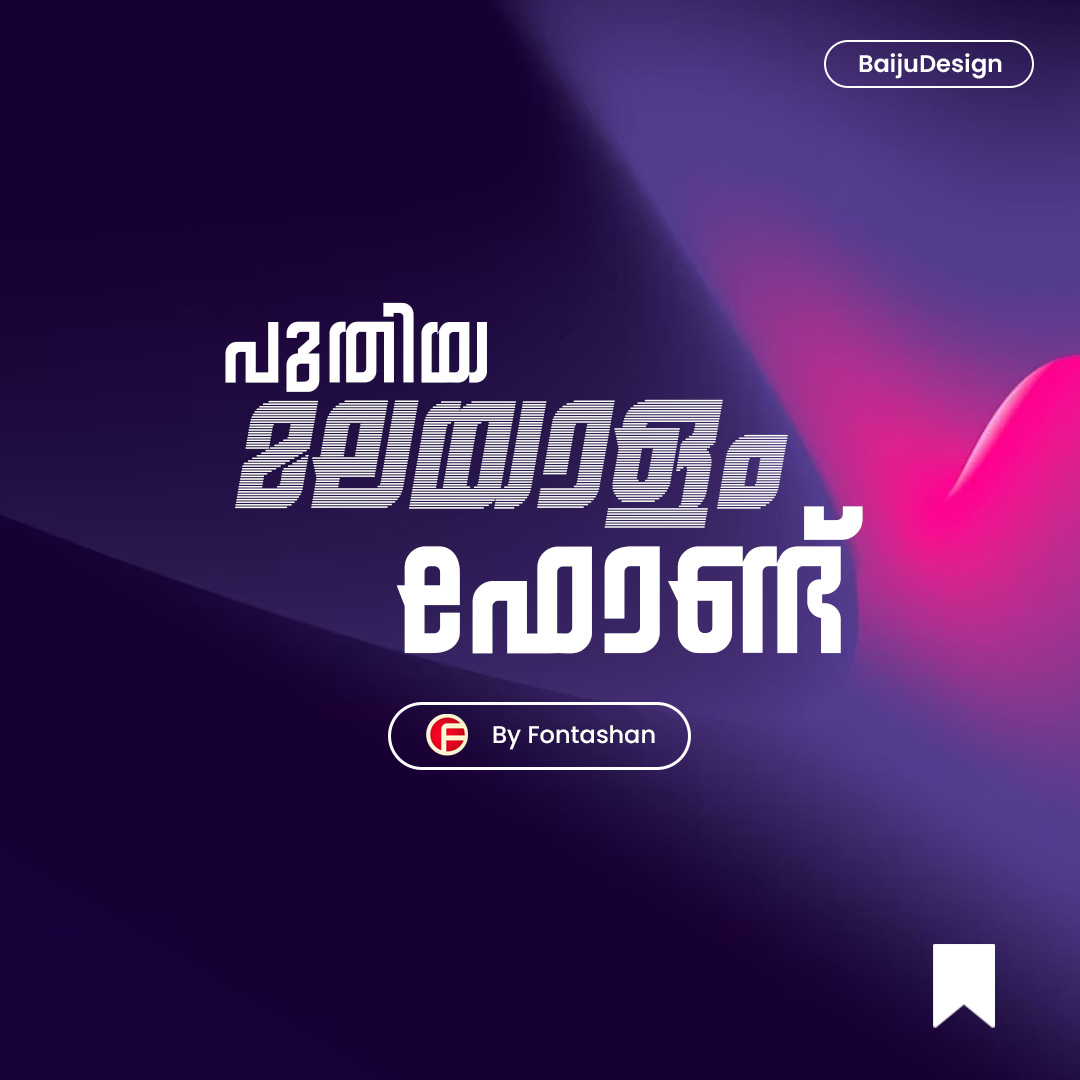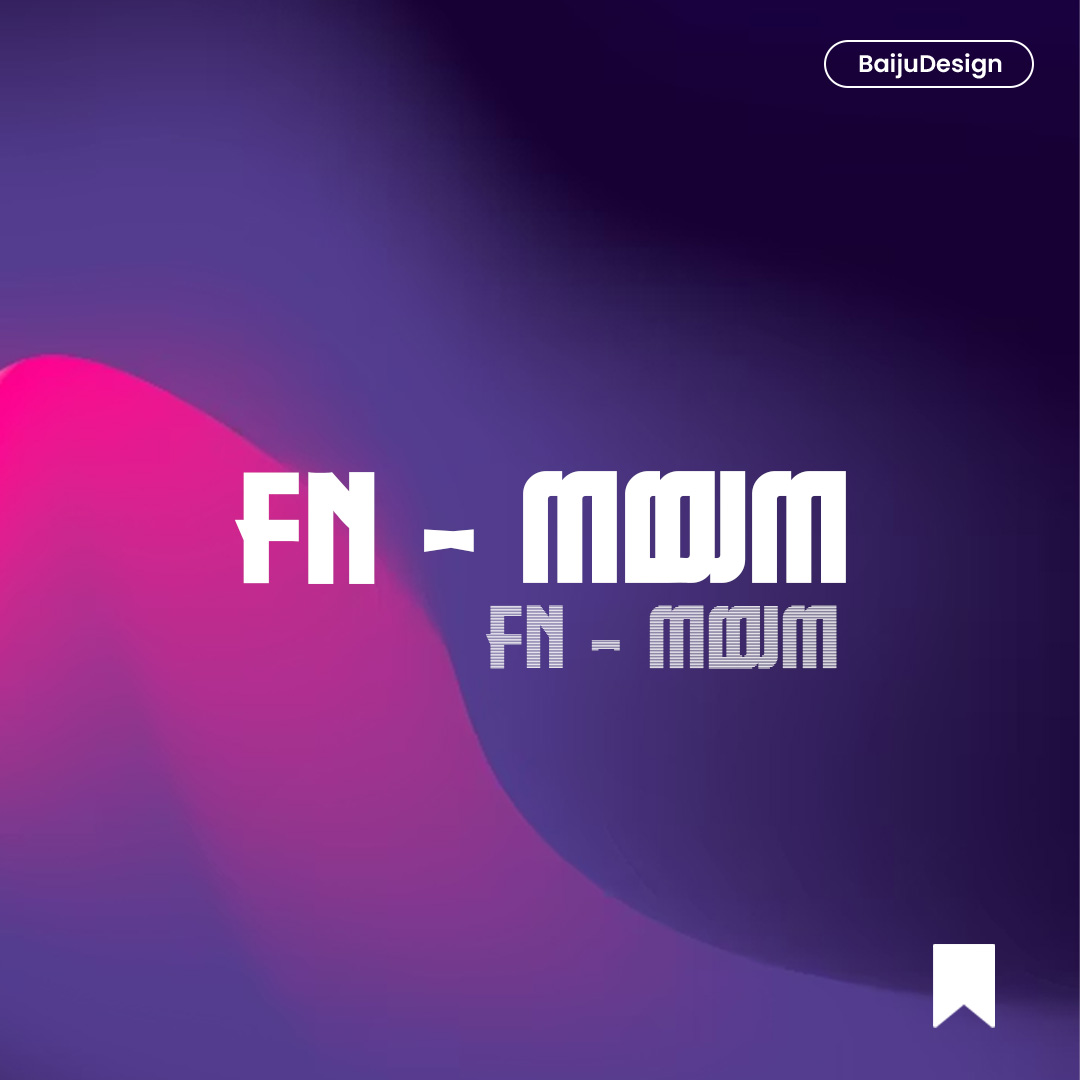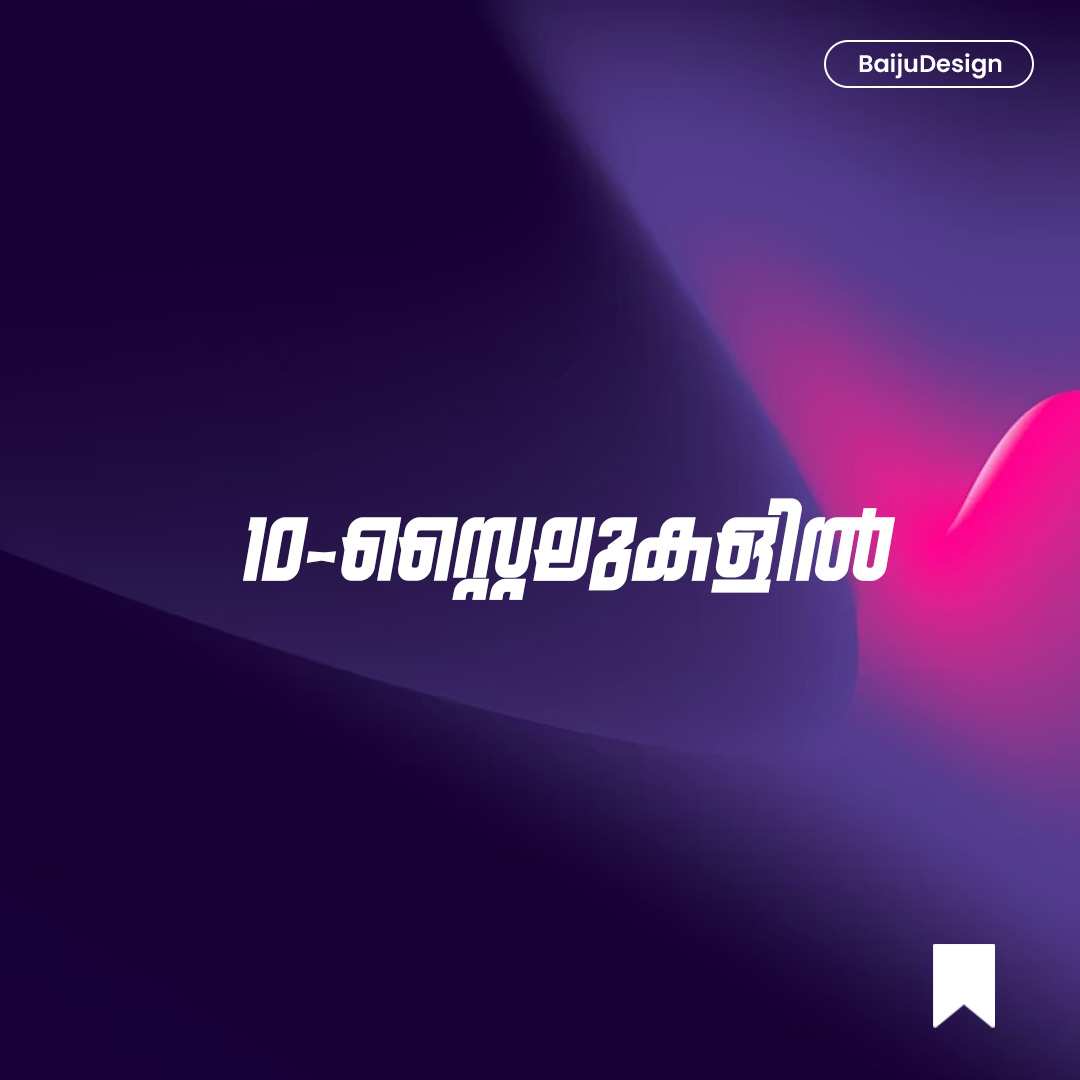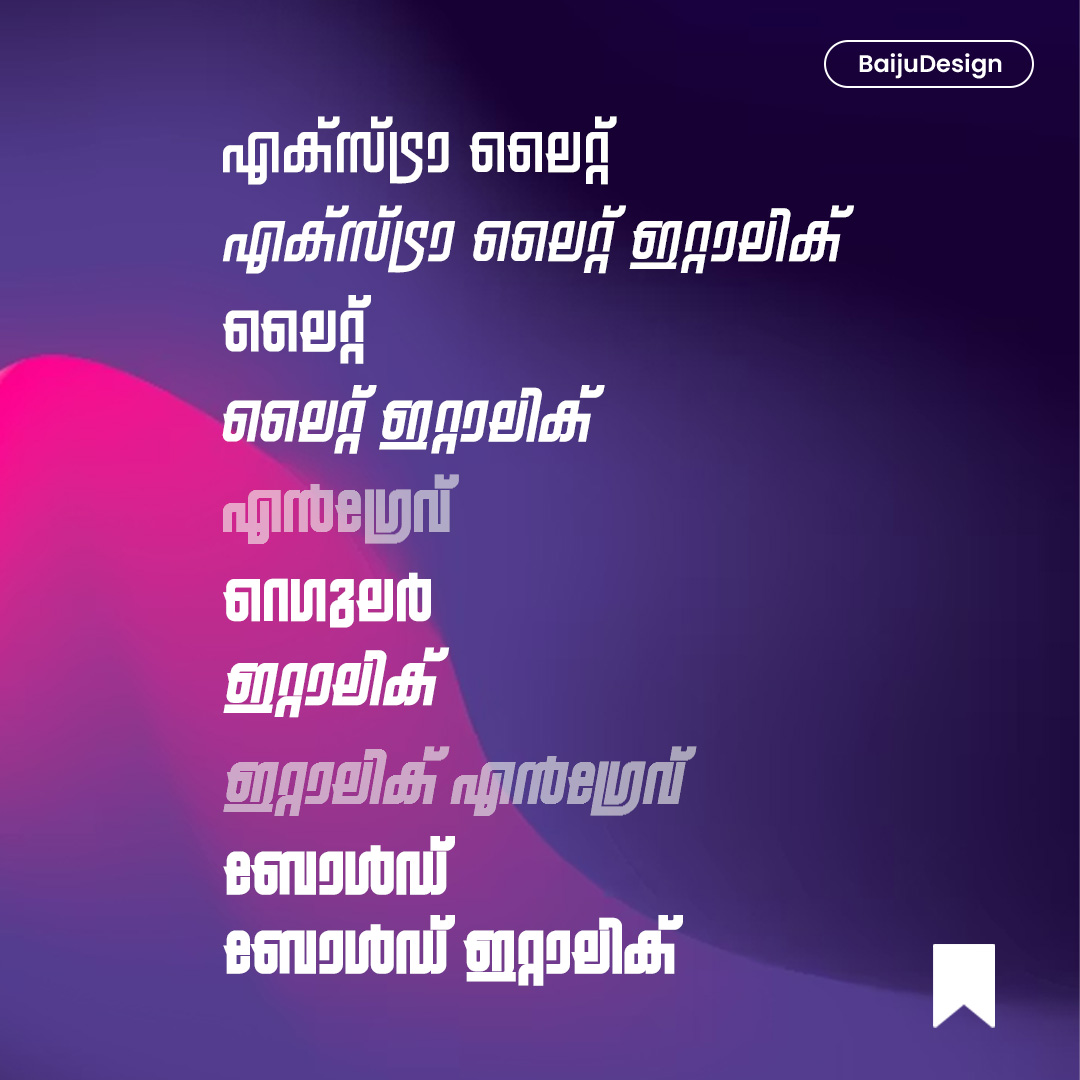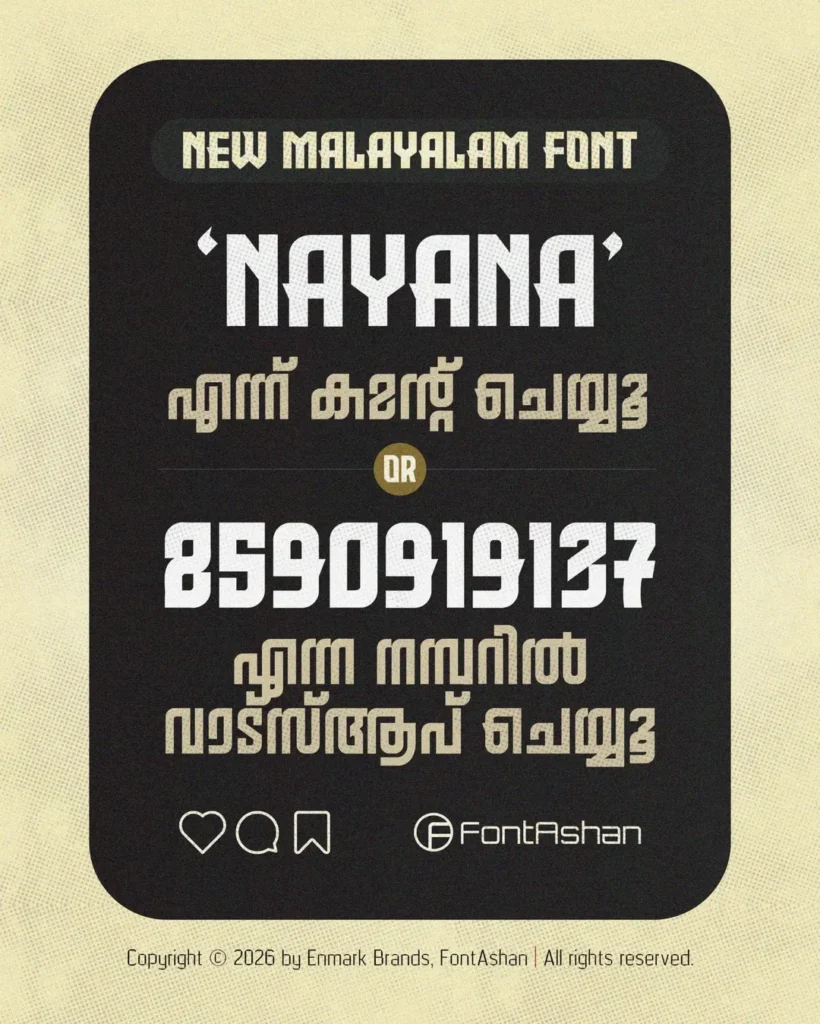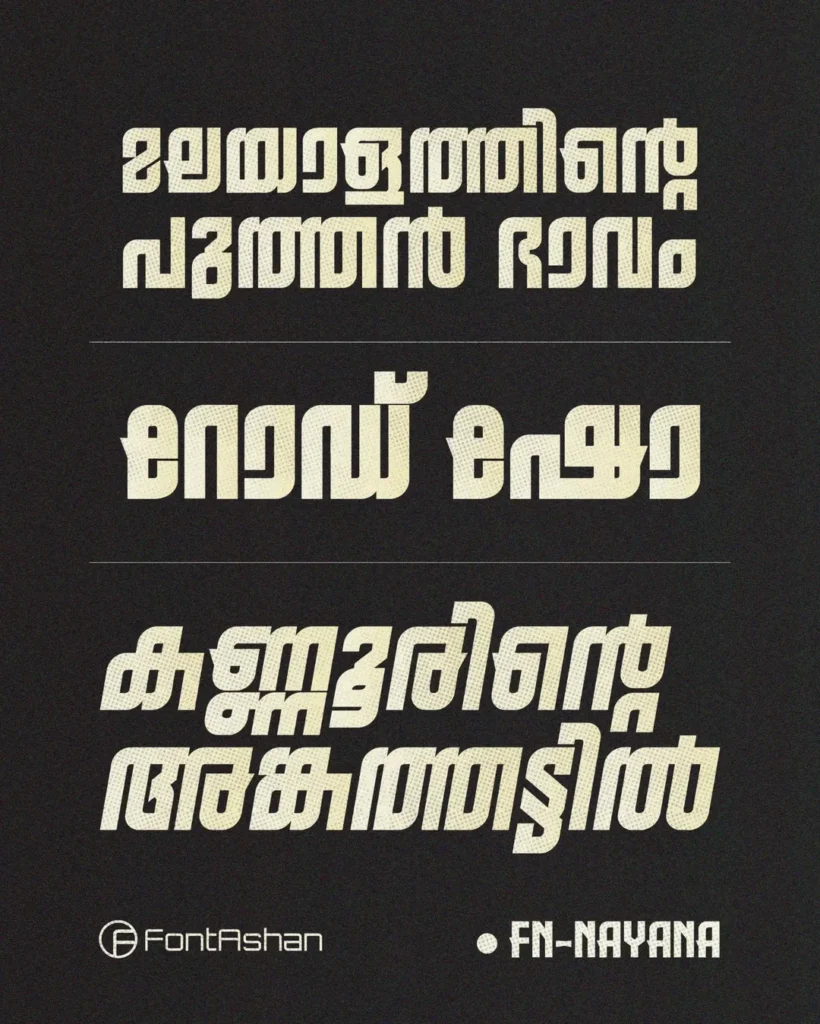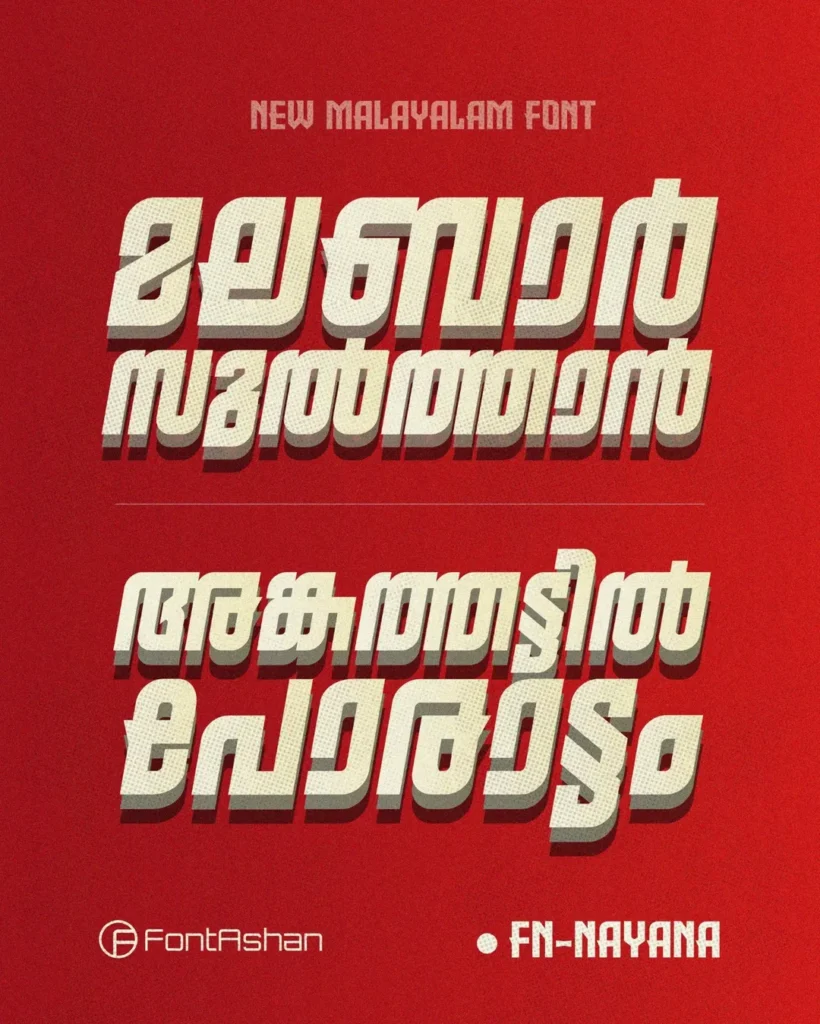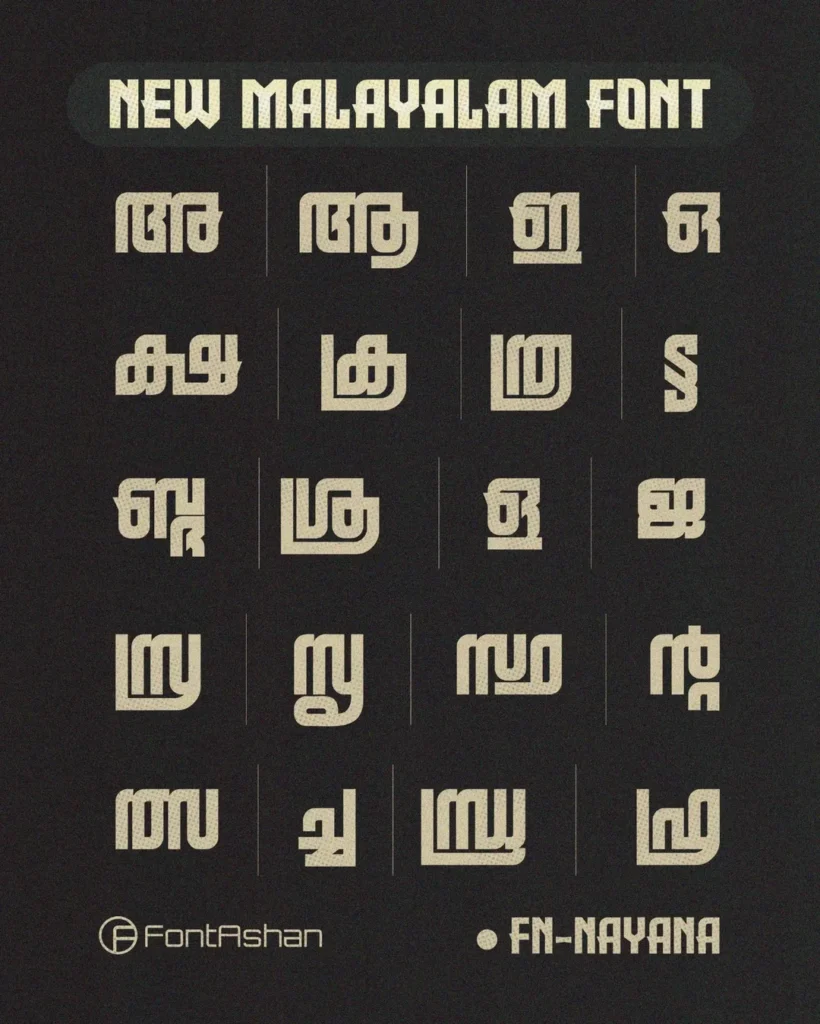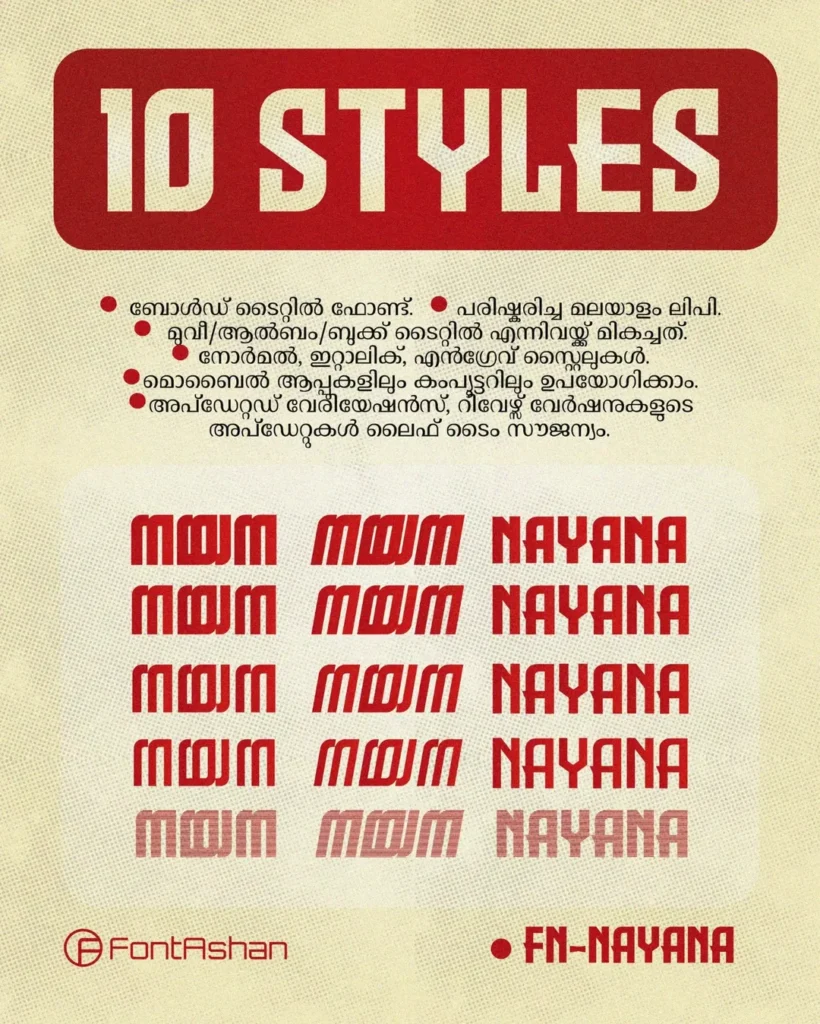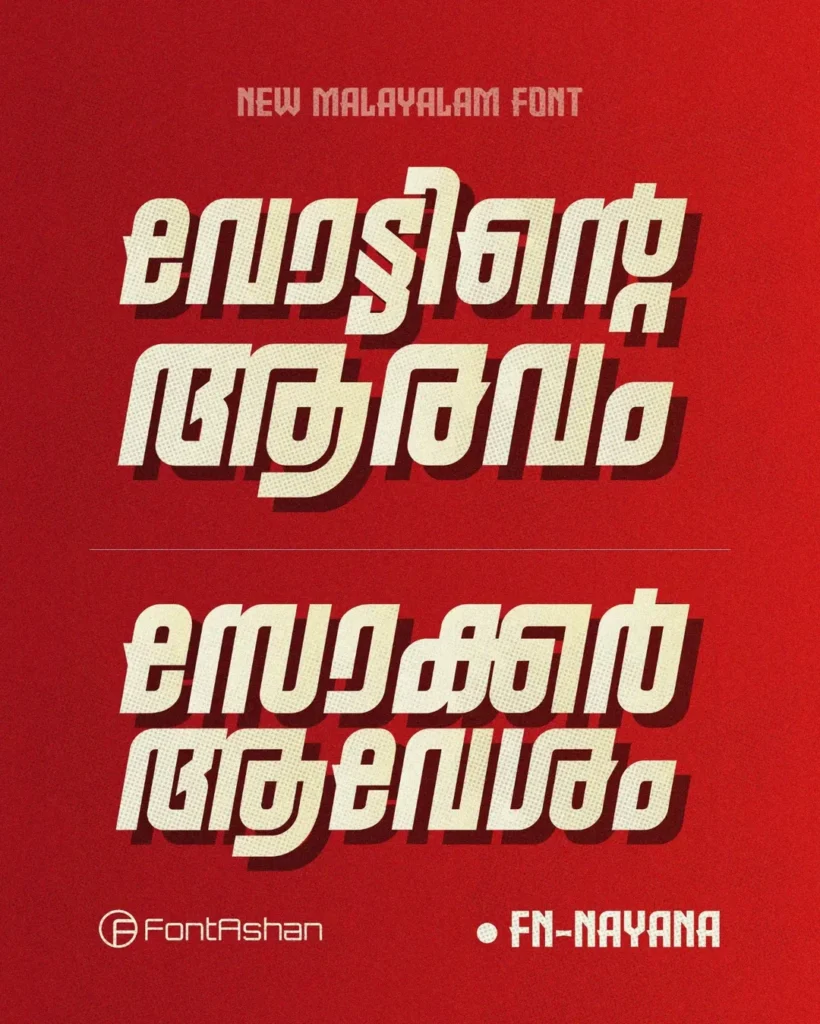
𝐅𝐍-𝐍𝐀𝐘𝐀𝐍𝐀 ✨
FN Nayana Font
FN Nayana
𝗧𝗵𝗲 𝗘𝗹𝗲𝗴𝗮𝗻𝘁 𝗘𝗱𝗴𝗲 𝗶𝗻 𝗠𝗮𝗹𝗮𝘆𝗮𝗹𝗮𝗺 𝗧𝘆𝗽𝗼𝗴𝗿𝗮𝗽𝗵𝘆 🎨👁️🗨️👁️
Make every design a masterpiece with FN-NAYANA. A perfect blend of style and clarity, crafted specifically for high-end Magazines, Cinematic Titles, and Premium Albums.
✅ Type: Premium Display Font
✅ Styles: 10 Stunning Variants
✅ Lipi: Revised Malayalam (പരിഷ്കരിച്ച ലിപി)
✅ Language: English & Malayalam
✅ Usage: Magazines, Album Art, Movie Titles & Luxury Branding
Pure Elegance. Ultimate Versatility. Designed for creators who want their typography to speak with grace and impact. 💎
| Font Name | FN Nayana |
| Language Support | Malayalam & English (Unicode) |
| Font Type | Display & headings |
| Creator / Designer | Fontashan |
| Usage | Best for Heading & Titling |